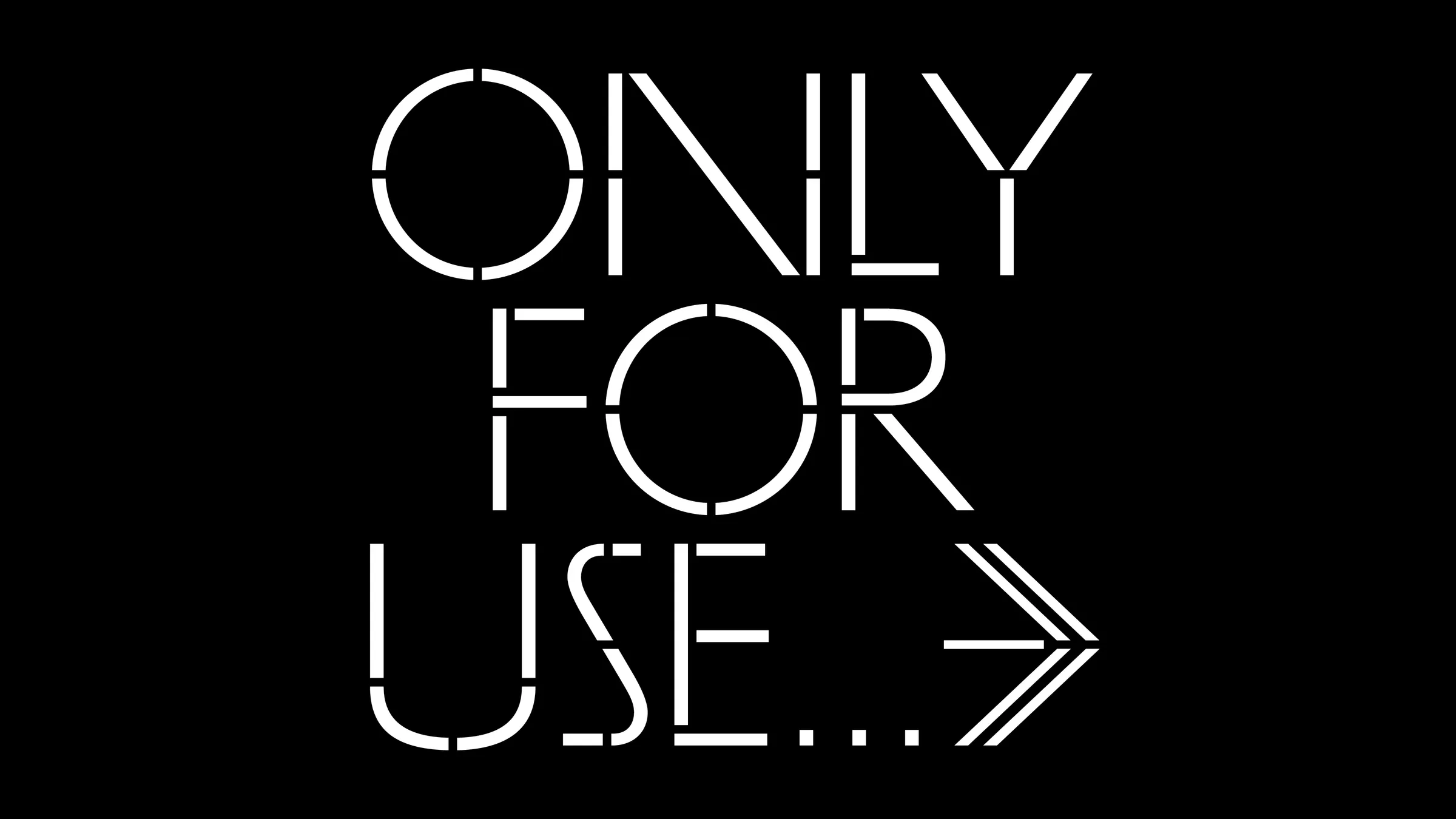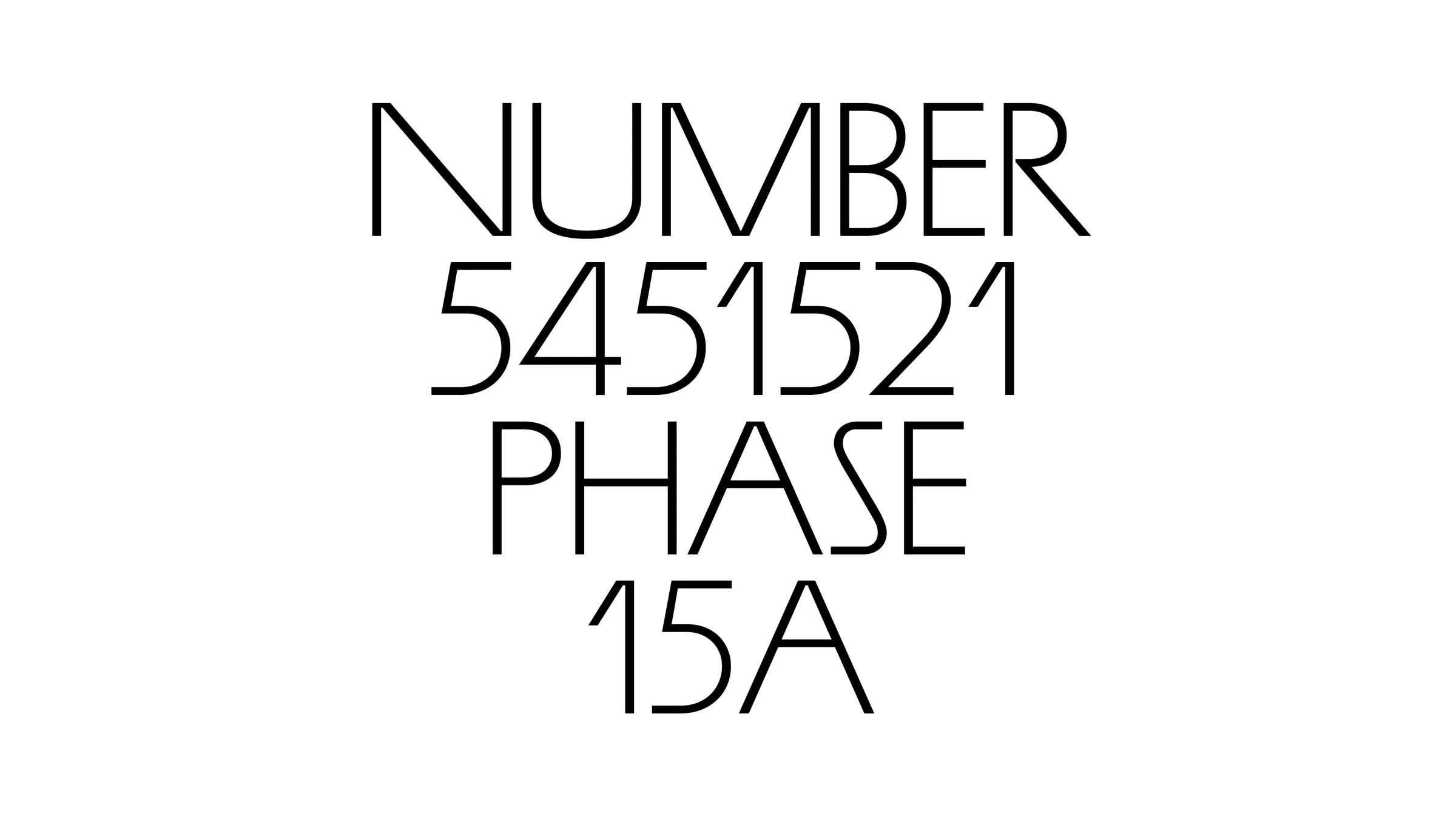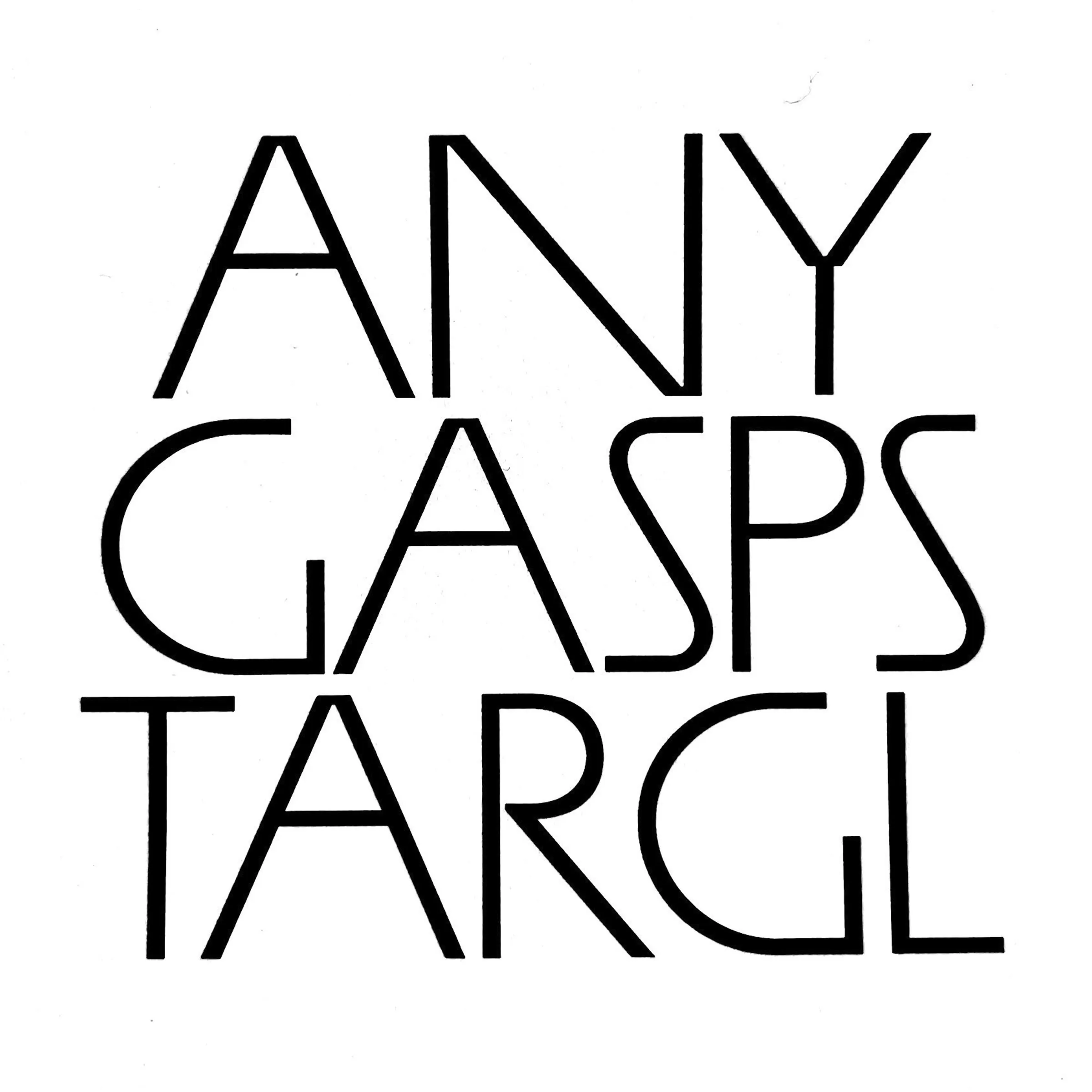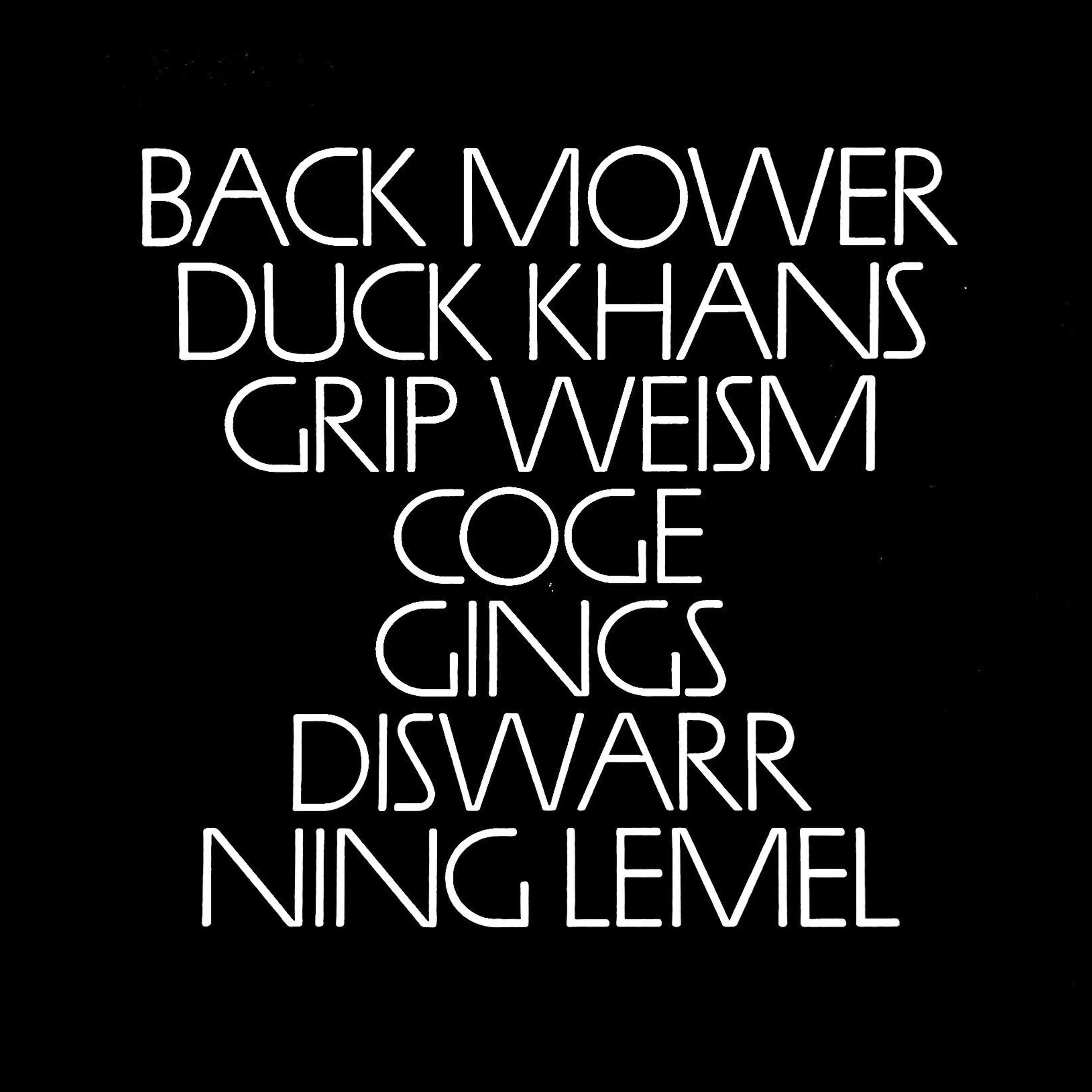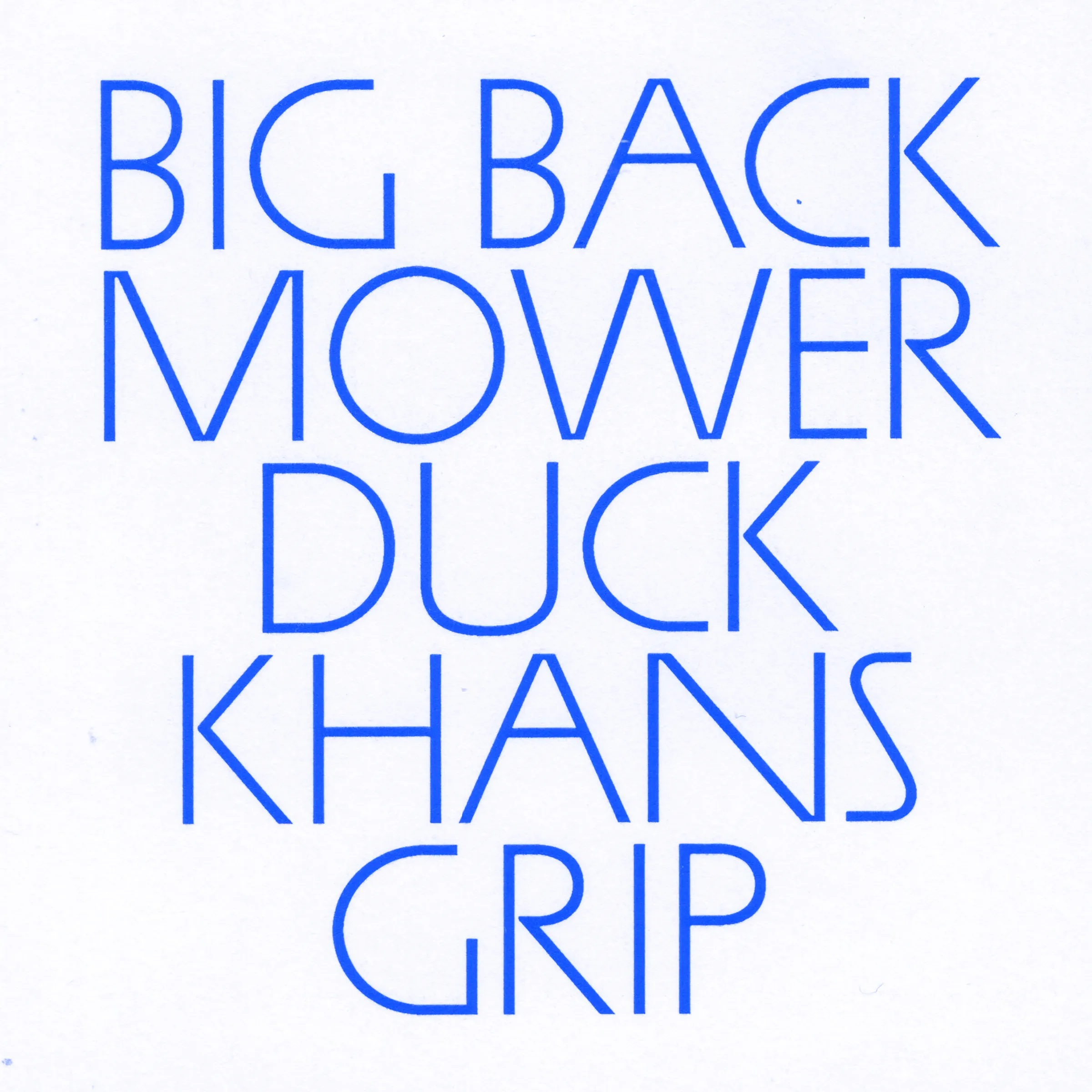
James is a unicase typeface (capitals only) available in 2 versions: Regular and Stencil.Its name also refers to its origin; this typeface is a contemporary reinterpretation of an alphabet seen on an album cover: "Afro-American Music - A Demonstration Recording by Dr. Willis James". The compilation is divided into several parts and is in fact a sort of description of the history of Afro-American music - African background, types of drums, song, speech etc.The typeface itself is quite striking, since these shapes were designed in 1970, and yet they seem completely contemporary, with their changing proportions, sometimes narrow, sometimes very wide, which I thought was a very interesting mix to give a lot of rhythm and silhouette to the compositions. The overall weight has been revised to be even lighter and to further reinforce the idea of a silhouette drawn when composing a block of text. Some of the letters feature surprisingly geometric curves, such as the S, C, U and O, which is almost a perfect circle. The connections in the letters N, M, A, V and other obliques make James all the more contemporary and 'digital'. The R can also be reminiscent of shapes from the gothic avant-garde, very distinctive, making this typeface an identity graphic element in many contexts. The Stencil version is also quite original, exploring this style and this way of forming letters with modular shapes in sometimes unexpected ways.James was designed by Eliott Grunewald and released in 2022
Designed by Eliott Grunewald. Development and mastering by OTT.